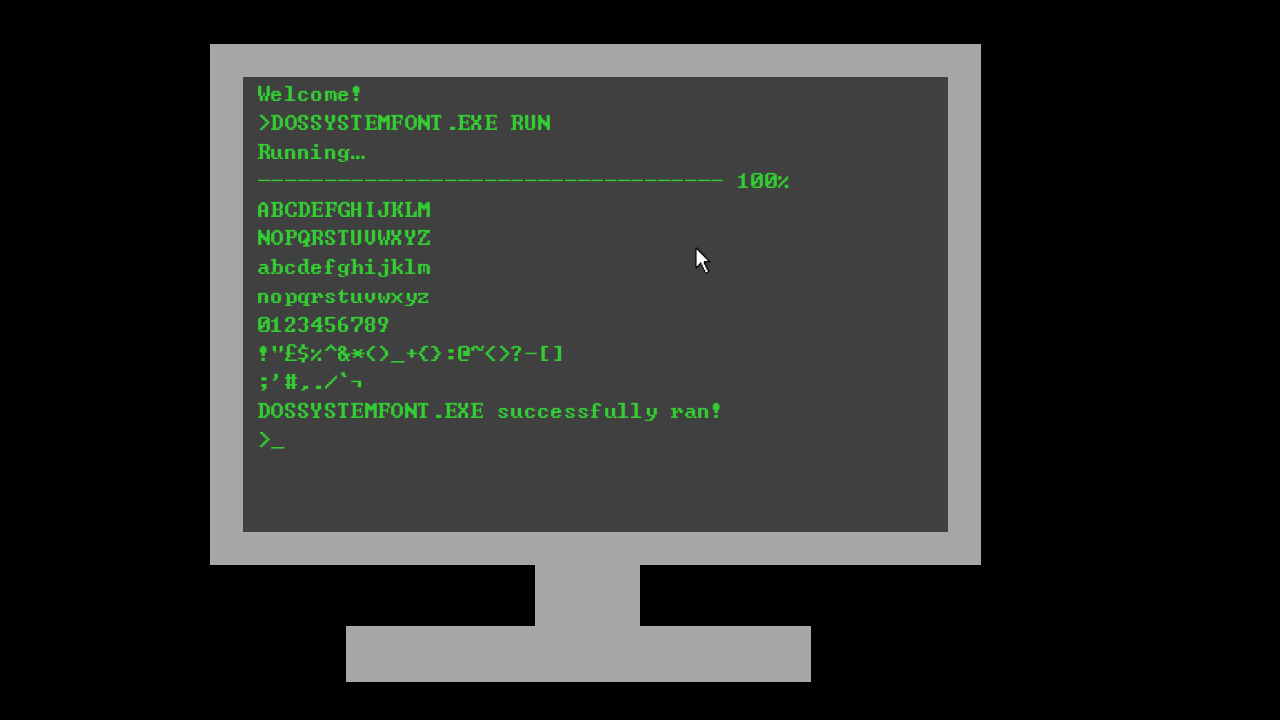
• A faithful recreation of the DOS / IBM PC System Font. Monospaced with very short descenders and thick font weight for better readability on low fidelity CRT displays. Makes me want to optimize AUTOEXEC.BATs all over again. Including original "More Latin" characters and custom made "Extended Latin A" characters for good international compatibility.
Nice job...impressive character count!
Ah, DOS ... my first love. I'll never forget my attempts at making the computer beep the opening to La Cucaracha.
Nice work and great character sets 10/10
Nice work and a lot of memories (also from BSOD's).
I searched hours for this and finally I arrived at fontstruct finding this beauty in no time. I will use this to create a custom bluescreen. Tank you very much - saved my day.
Amazing! So DOS-like!
That is not in %100.
Wow, this looks cool!
dos, never forget...
A lot of inaccuracies.
A preview I just made
@user2048 that's not how msdos runs apps